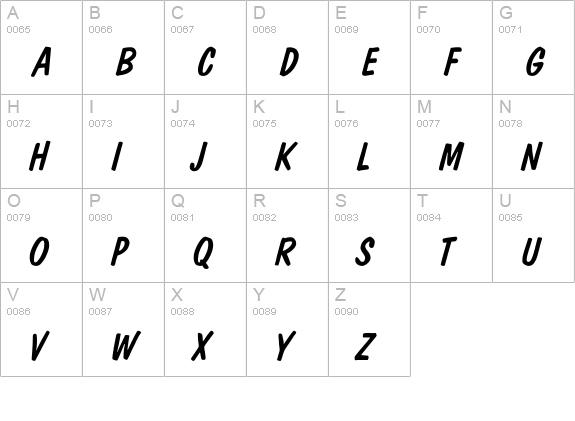
DomCasual Italic is a distinctive, italic variant in the DomCasual typeface family \xE2\x80\x94 well suited to design and typography projects.
Introducing DomCasual Italic font - a whimsical and playful typeface that brings a touch of casual elegance to your design projects. With its slanted and flowing letterforms, DomCasual Italic exudes charm and personality, making it perfect for adding a touch of sophistication to invitations, posters, and branding materials. This unique font is not only visually appealing but also versatile, suitable for a wide range of applications. Whether you're designing a wedding invitation, crafting a logo for a boutique, or creating a social media graphic, DomCasual Italic will add a touch of flair and refinement to your work. Best of all, DomCasual Italic is available for free download at FontsMarket.com. Simply visit the website to easily access this delightful font and elevate your design projects with its distinctive style. Don't miss out on this opportunity to enhance your creative endeavors with DomCasual Italic - the perfect blend of casual and elegant typography.